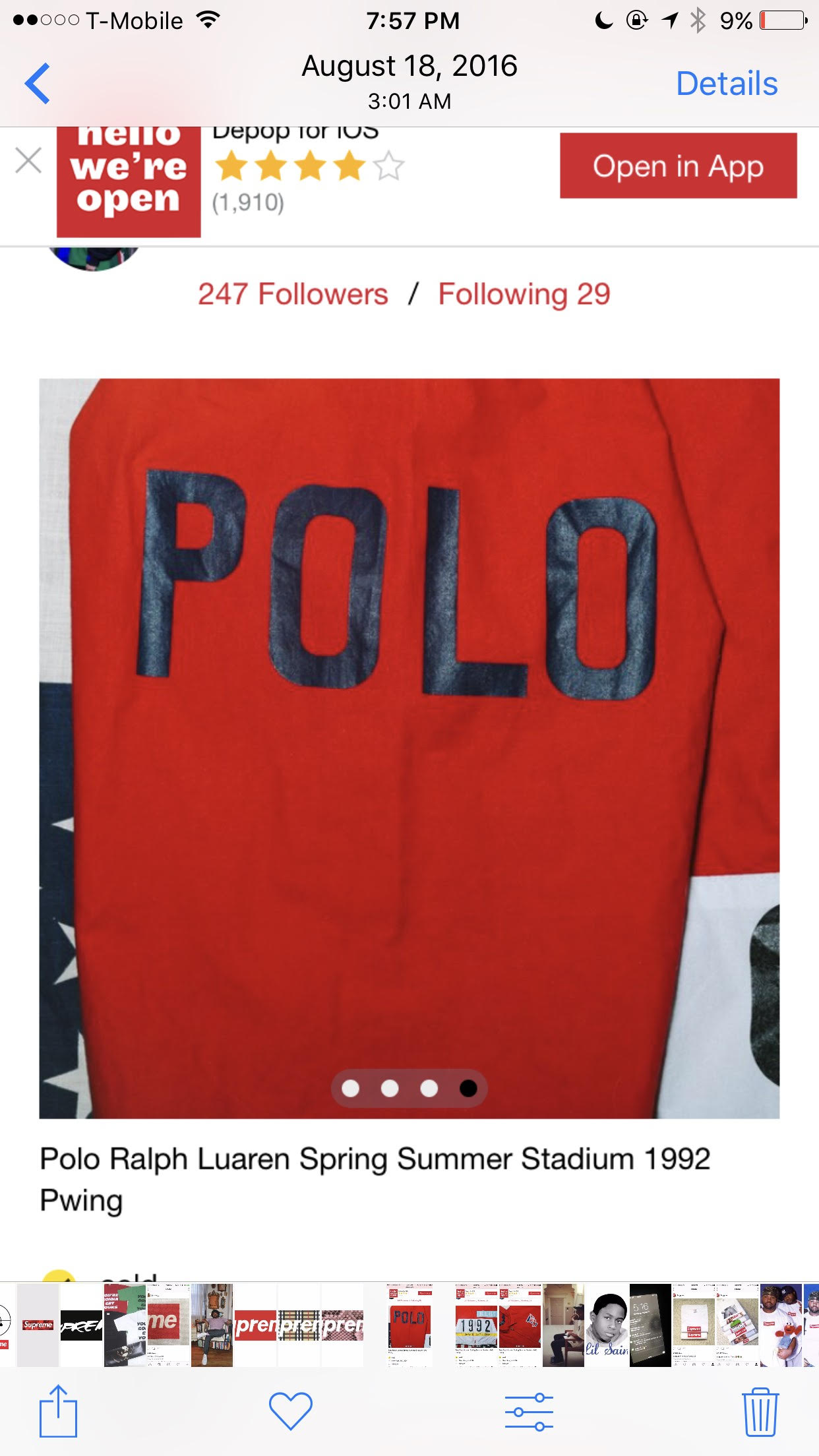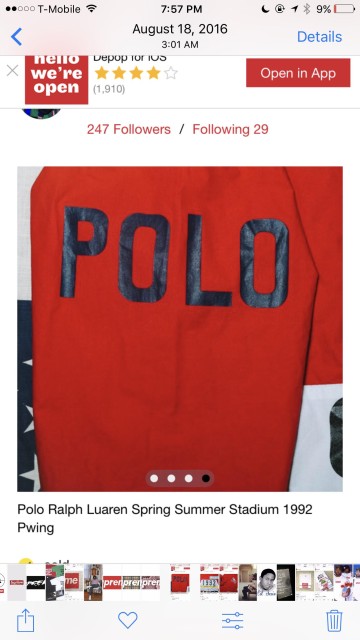
The letters are too generic for an exact match. You can try to reproduce it by eliminating some round corners of Fishmonger (Suitcase Type Foundry) of by expanding a bit the Siliwangi Engineering (Sanz Font, free for personal use)